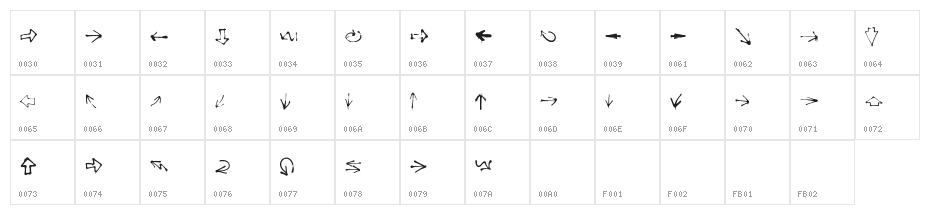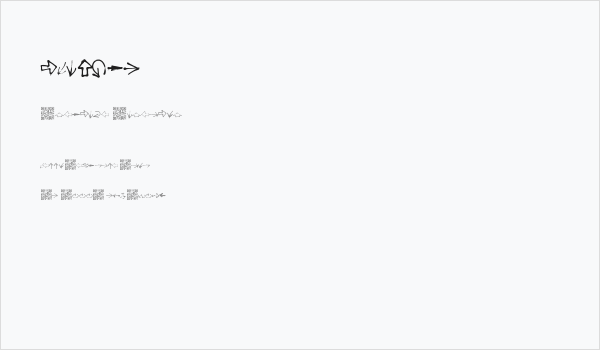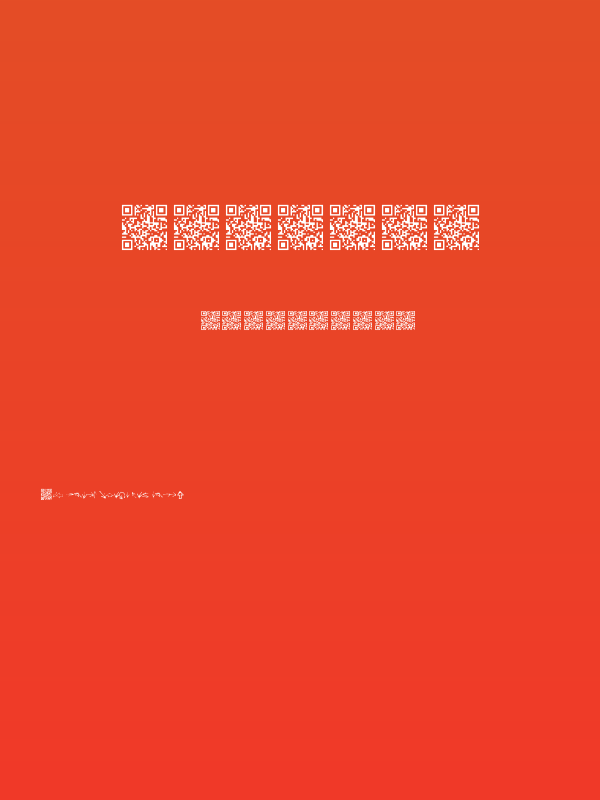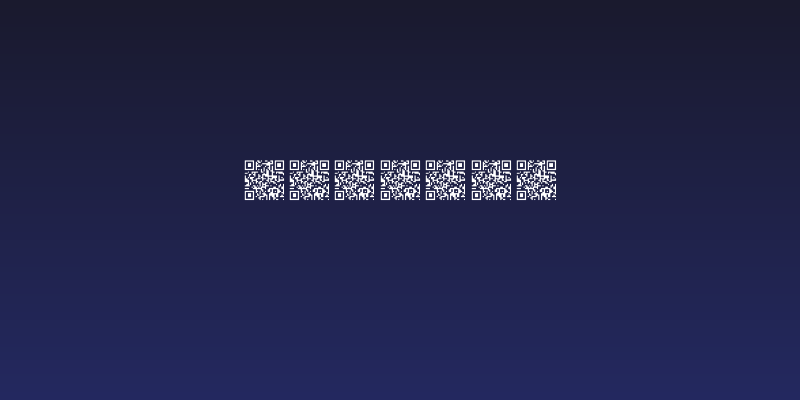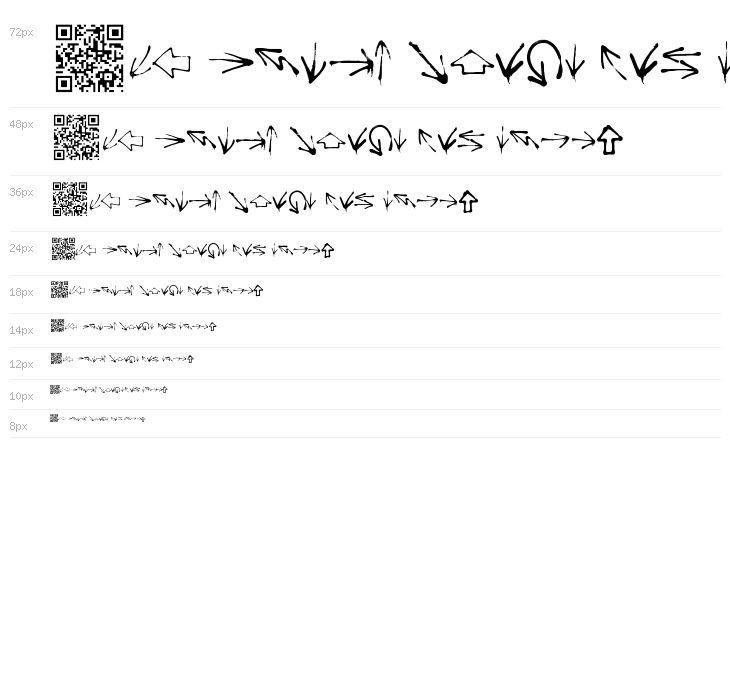
thisway Font
thisway Description
A decorative display font composed entirely of various hand-drawn arrow symbols, each character representing a different arrow direction or style. The strokes are rough and expressive, giving a dynamic, sketch-like appearance.
| Overall Style | Decorative, Playful, Sketchy |
| Use Case | Icons, Infographics, Signage, Posters |
| Proposed Projects | Wayfinding signage, infographics, creative maps, playful posters, instructional graphics. |